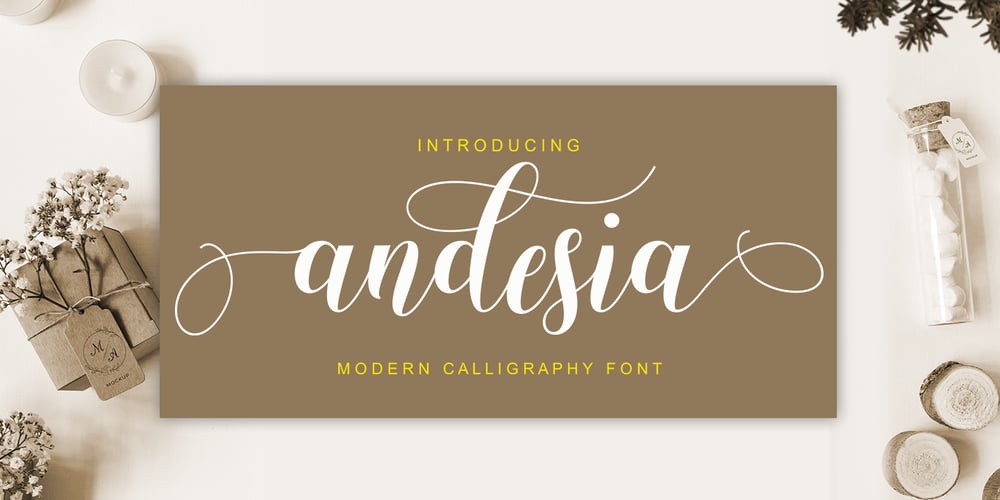
Andesia Font Family was designed by khaidir and published by Gatype. Andesia contains 1 styles and family package options. Andesia Script is soft and sweet calligraphy typeface, with characters dance along the baseline. It has a casual and elegant touch. Can be used for various purposes.such as logos, wedding invitation, heading, t-shirt, letterhead, signage, lable, news, posters, badges etc.OpenType features with stylistic alternates, ligatures and multiple language support.To enable the OpenType Stylistic alternates, you need a program that supports OpenType features such as Adobe Illustrator CS, Adobe Indesign & CorelDraw X6-X7, Microsoft Word 2010 or later versions.How to access all alternative characters, using Windows Character Map with Photoshop:https://www.youtube.com/watch?v=Go9vacoYmBwThank you very much for looking and please tell me if you have questions.Designers: khaidirPublisher: Gatype